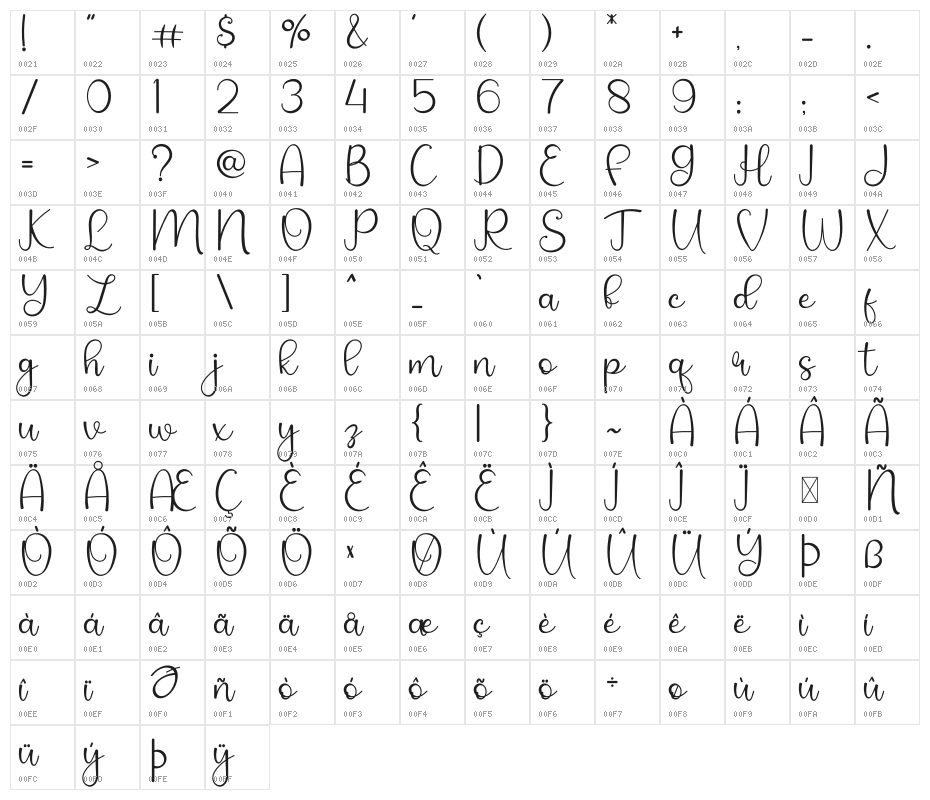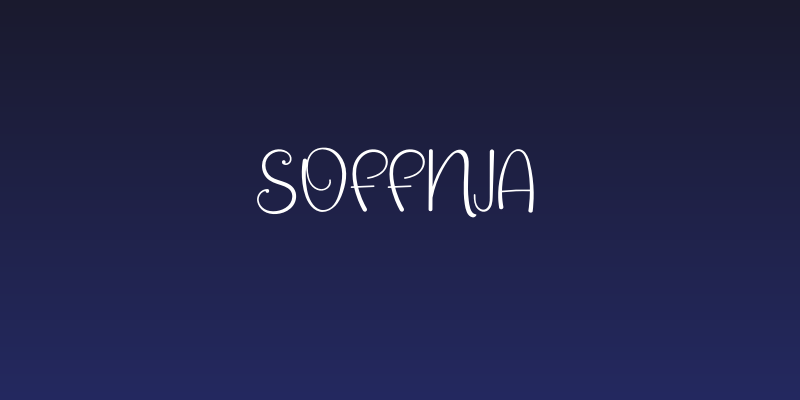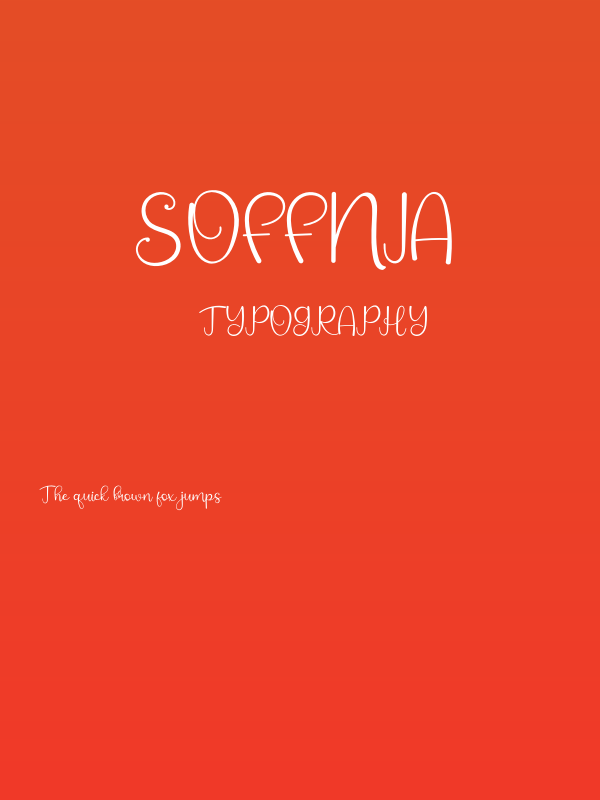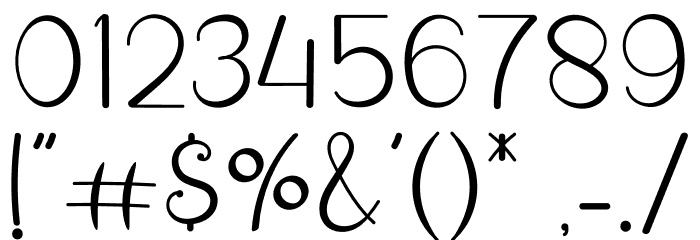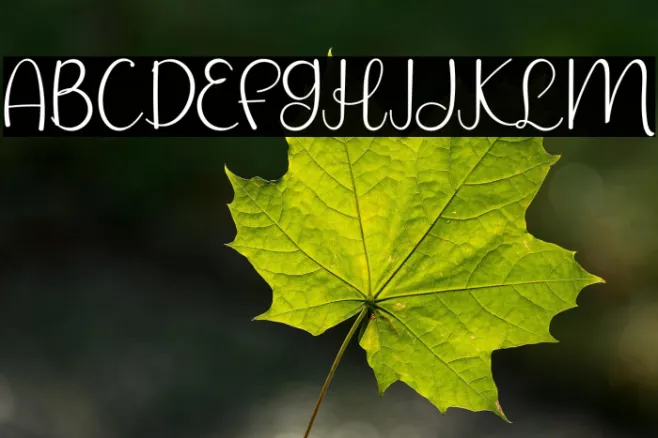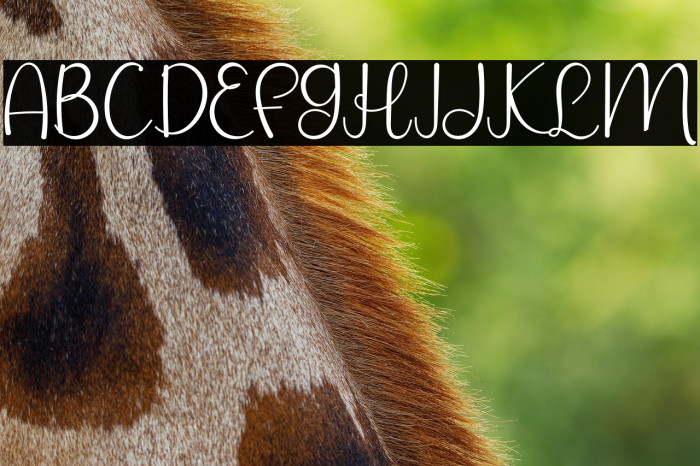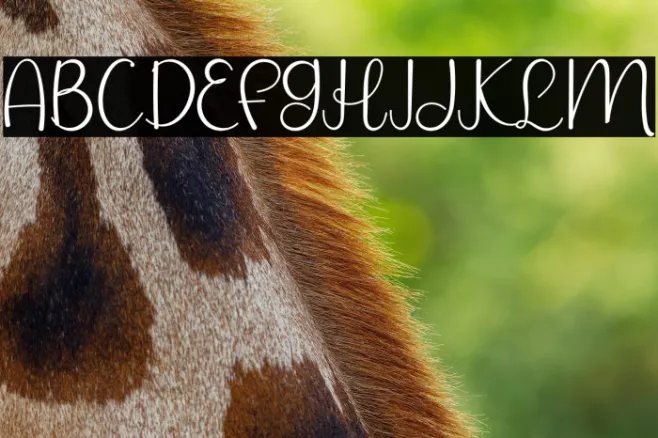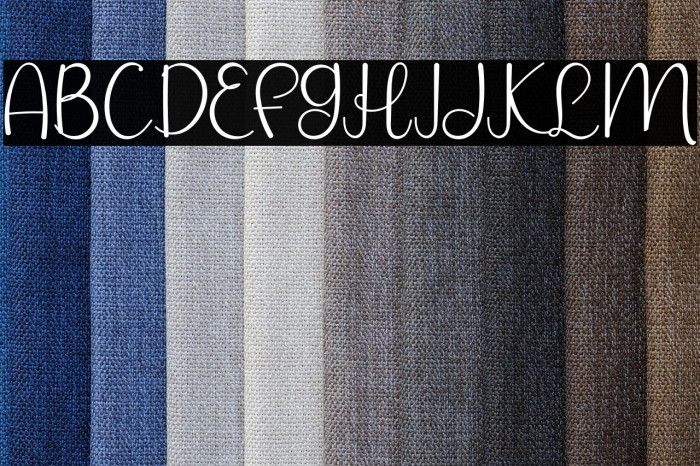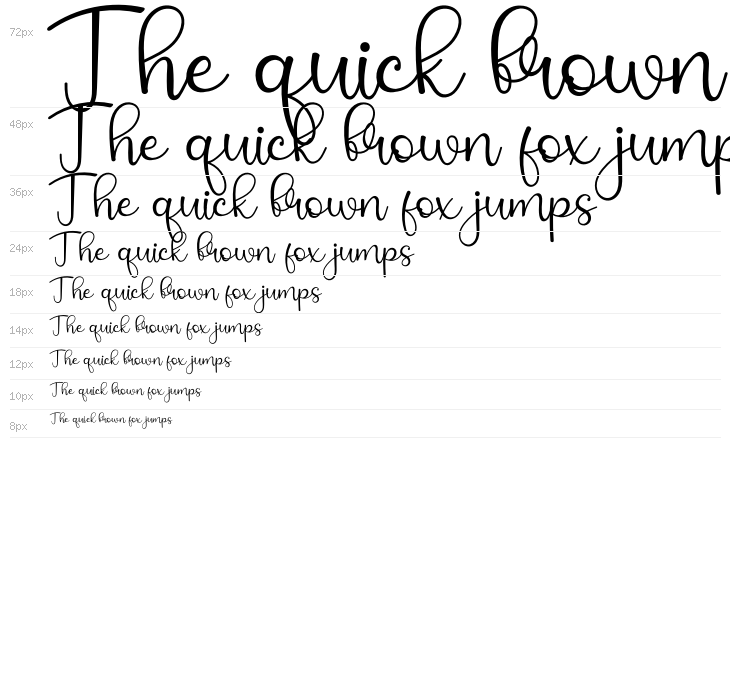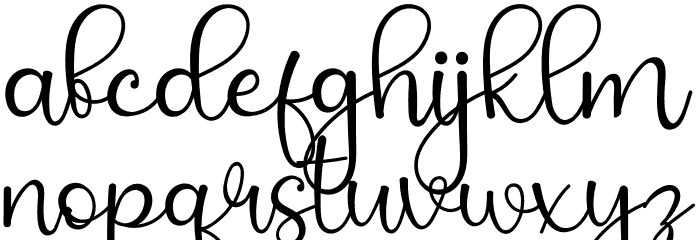
Soffnia Font
Soffnia Description
This font features a playful and elegant script style with a handwritten touch. The uppercase letters are tall and slender, with smooth curves and a consistent flow. The lowercase letters maintain a similar style, with some characters exhibiting unique loops and swirls that add a whimsical flair. Numbers are clear and easy to read, maintaining the same elegant style. Special characters are well-integrated, matching the overall aesthetic. The font's design is both sophisticated and approachable, making it suitable for a variety of creative projects.